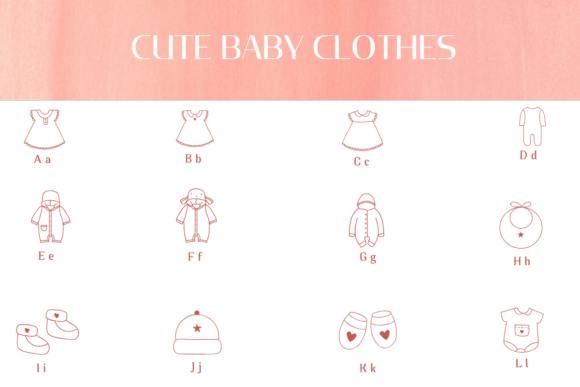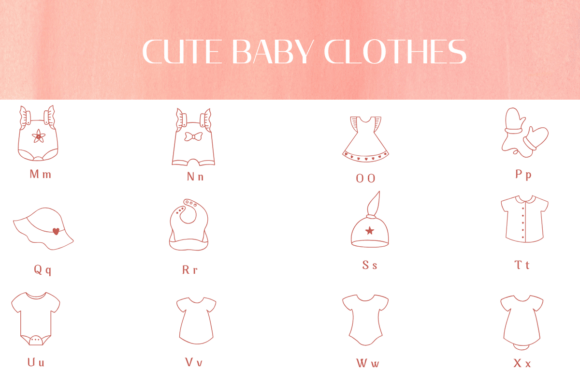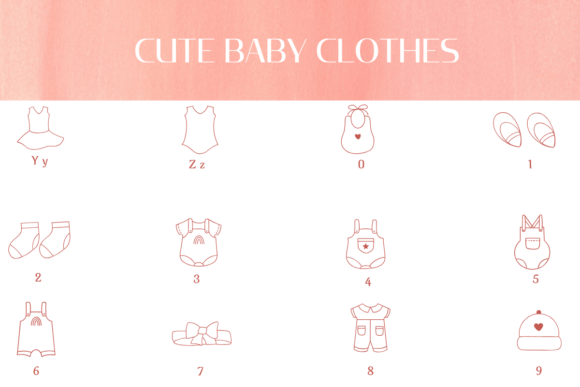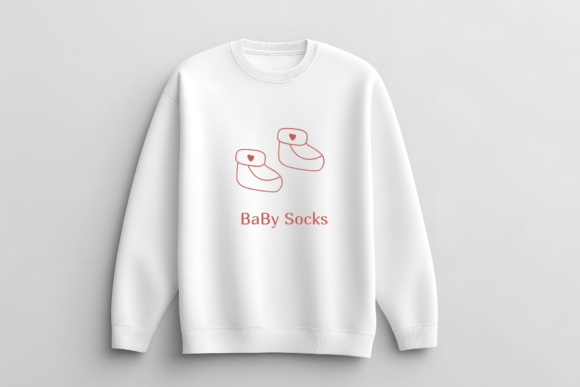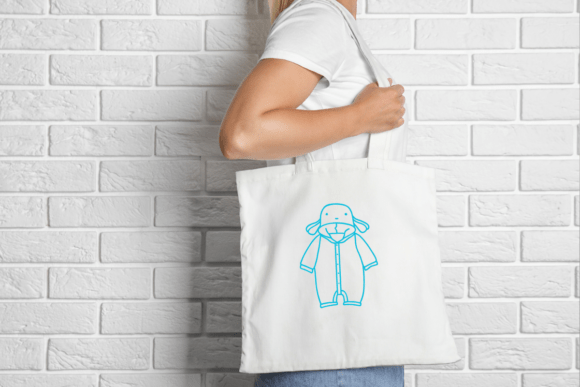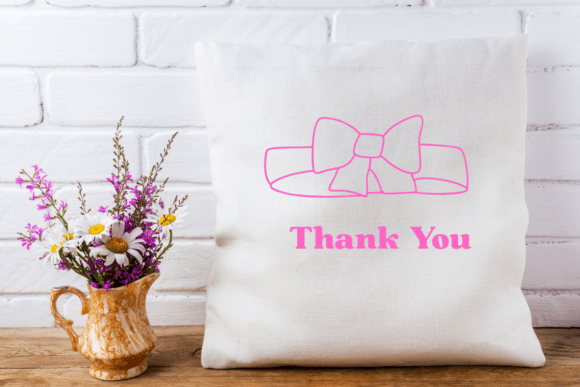
Cute Baby Clothes Font: Add a Touch of Whimsy to Your Designs
Are you a designer or crafter looking for a unique and playful font to add to your creative projects? Look no further than the Cute Baby Clothes font, a fun dingbats font that’s sure to bring a smile to your face. In this article, we’ll explore the features and benefits of this delightful font, and show you how to incorporate it into your designs.
What is Cute Baby Clothes Font?
Cute Baby Clothes is a dingbats font, which means it’s a type of font that features images or icons instead of traditional letters. This font is specifically designed to resemble adorable baby clothes, complete with tiny onesies, socks, and other cute accessories. The result is a playful and whimsical font that’s perfect for projects related to babies, children, or parenting.
Key Features of Cute Baby Clothes Font
- Unique and playful design: The Cute Baby Clothes font features a range of adorable baby clothes and accessories, making it perfect for adding a touch of whimsy to your designs.
- Easily scalable: Like any digital font, Cute Baby Clothes can be scaled up or down to fit your design needs, without losing any quality.
- Fun and creative possibilities: With Cute Baby Clothes, you can create a wide range of fun and creative designs, from baby shower invitations to children’s book illustrations.
How to Use Cute Baby Clothes Font in Your Designs
Using the Cute Baby Clothes font in your designs is easy. Here are a few ideas to get you started:
- Baby shower invitations: Add a cute and playful touch to your baby shower invitations with this adorable font.
- Children’s book illustrations: Use Cute Baby Clothes to create fun and engaging illustrations for children’s books, such as alphabet books or nursery rhymes.
- Baby-themed crafts: This font is perfect for creating baby-themed crafts, such as onesie designs, baby block decorations, or nursery wall art.
- Social media graphics: Add a playful touch to your social media graphics, such as Facebook posts or Instagram stories, with Cute Baby Clothes.
Tips and Tricks for Getting the Most Out of Cute Baby Clothes Font
Here are a few tips and tricks for getting the most out of Cute Baby Clothes font:
- Experiment with different colors and textures: Add depth and interest to your designs by experimenting with different colors and textures.
- Combine with other fonts: Try combining Cute Baby Clothes with other fonts to create a unique and visually appealing design.
- Use for headlines and titles: This font is perfect for headlines and titles, where you want to grab the reader’s attention.
In conclusion, the Cute Baby Clothes font is a fun and playful dingbats font that’s perfect for designers and crafters looking to add a touch of whimsy to their creative projects. With its unique and adorable design, easily scalable and compatible with most design software, this font is sure to bring a smile to your face. So why not give it a try and see what creative possibilities you can come up with?